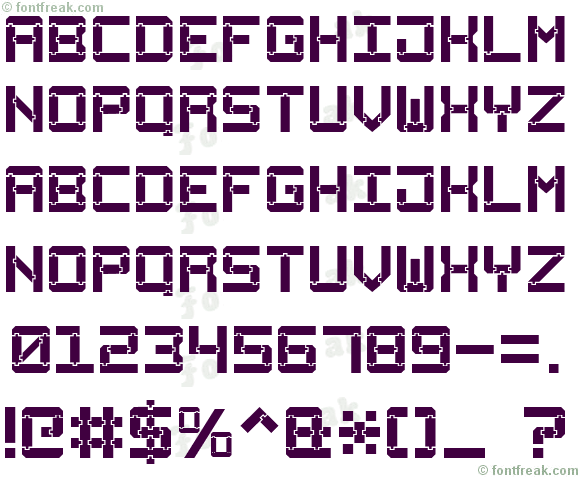
Square Wood-7
Square Wood-7 by Style-7 is a striking display font that blends a unique geometric style with a rustic wood-inspired aesthetic. This font, categorized as decorative, features bold, square-shaped characters that give a modern yet organic feel. The stroke weight is consistent throughout, providing a sturdy appearance, while the sharp angles and clean lines evoke the essence of wood planks, making it visually appealing for various creative projects. The spacing between characters is well-balanced, ensuring readability without sacrificing style.
The Square Wood-7 font is ideal for a range of applications. It's particularly effective for eye-catching signage, where its boldness can draw attention. Additionally, it works well in branding for artisan businesses, such as craft breweries or handmade furniture shops, where a natural and rustic vibe is essential. The font can also enhance restaurant menus, offering a unique touch that reflects a farm-to-table concept. For graphic designers working on posters, especially for music festivals or outdoor events, Square Wood-7 provides a distinctive flair that stands out in crowded spaces.
What sets the Square Wood-7 font apart is its ability to combine modern geometric clarity with a natural, earthy feel, making it suitable for both contemporary and traditional designs. With its unique character, the Square Wood-7 font free download is a must-have for anyone looking to elevate their typography in a distinctive way.